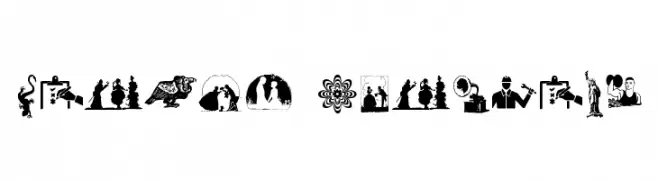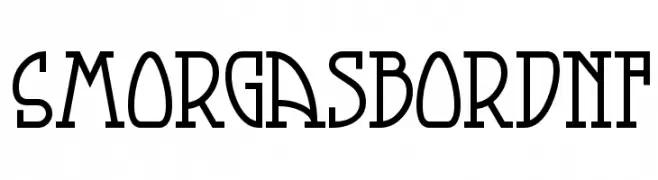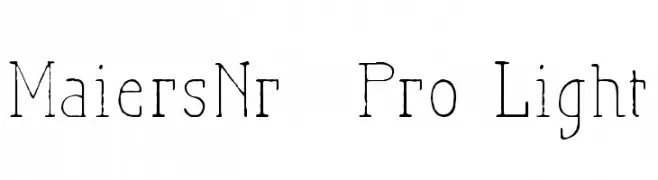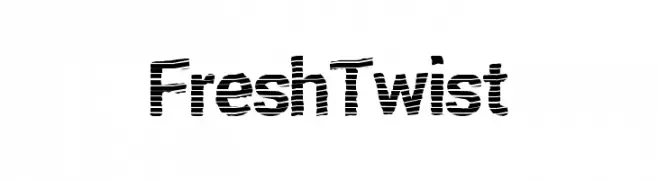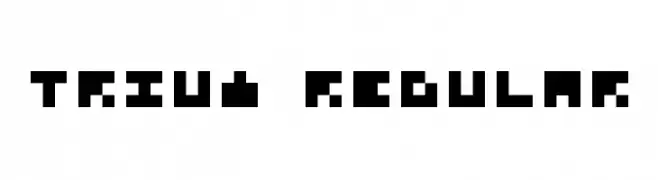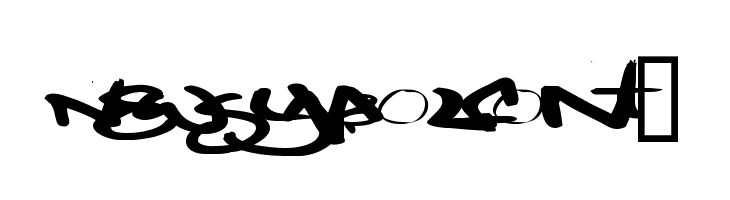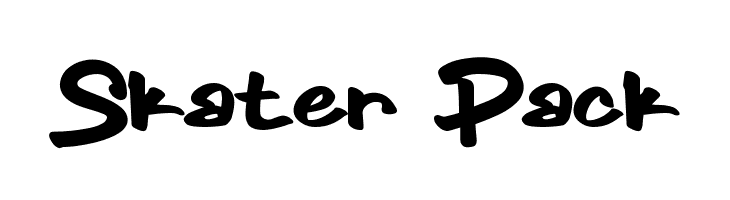
A chaotic, distressed font with bold, jagged strokes and a grunge aesthetic.
A bold, condensed font with angular, geometric shapes for a modern look.
A bold, decorative font with geometric and dynamic letterforms.
An artistic, handcrafted font with thin, elongated strokes and subtle irregularities.
A modern serif font with playful, refined character shapes and sharp serifs.
A bold, striped font with a dynamic and modern style.
A bold, pixelated font with a retro digital aesthetic.